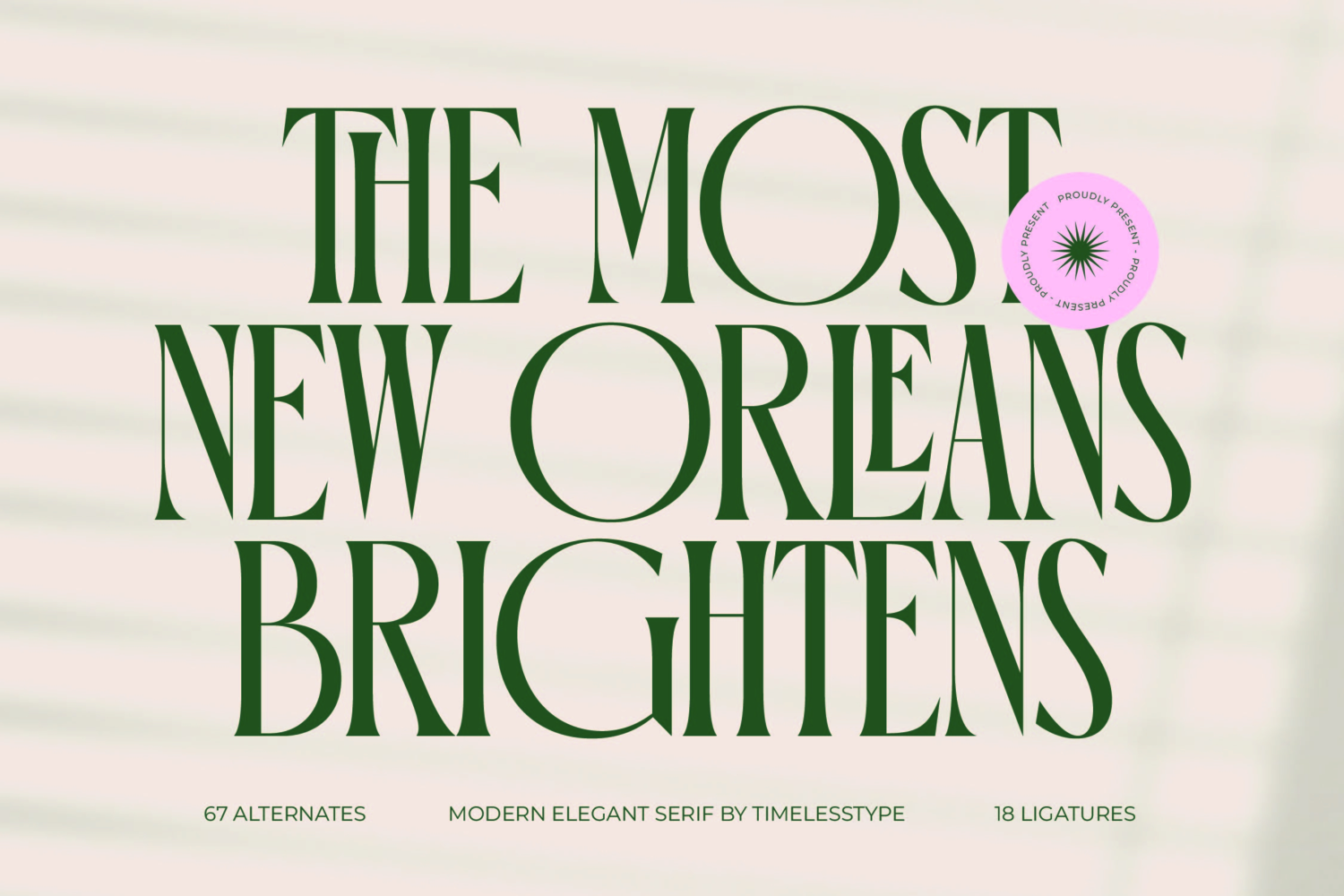
Orleans Brightens - Modern Elegant Serif
Elevate your design projects with instant sophistication and dramatic flair. The Orleans Brightens - Modern Elegant Serif font is a masterclass in high-contrast typography, blending refined classicism with contemporary sharpness. Its striking vertical stress and elegantly elongated serifs command attention, making every headline a powerful statement. This typeface is engineered for visual impact, ensuring your brand identity resonates with undeniable luxury and quality, setting a truly upscale tone.
Unleash creative potential with deep OpenType features. Beyond its elegant default forms, Orleans Brightens - Modern Elegant Serif includes 67 unique alternates and 18 expertly crafted ligatures, providing extensive customization for truly bespoke typography. With its extensive multilingual support, Orleans Brightens - Modern Elegant Serif adapts seamlessly across global markets, making it incredibly versatile for international projects and diverse content needs, from European fashion to Asian editorial design.
Define your brand narrative with a typeface built for prestige. This stunning modern serif is the perfect choice for luxury branding, high-end fashion campaigns, sophisticated product packaging, and glossy editorial magazine layouts. Use Orleans Brightens - Modern Elegant Serif to craft signature logos, refined wedding invitations, or impactful website headers that demand a premium aesthetic. It is specifically ideal for projects requiring a blend of timeless elegance and powerful readability at display sizes.